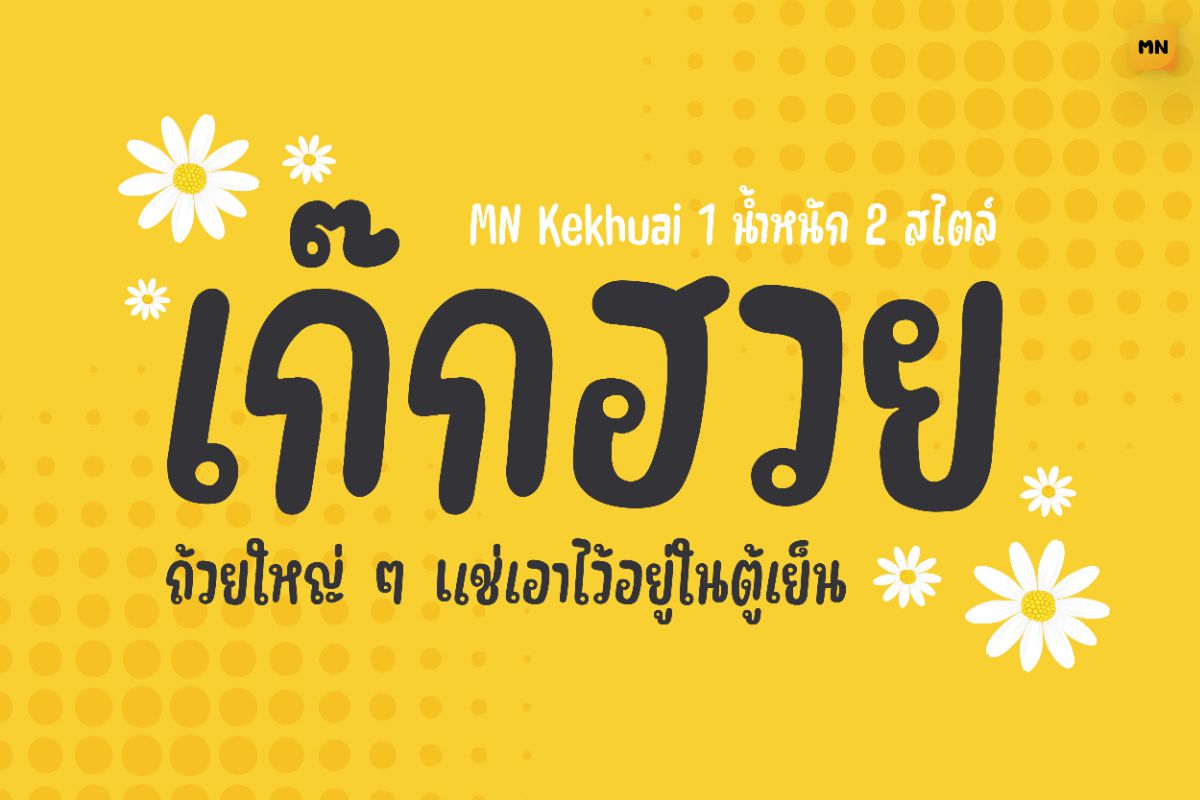
MN Kekhuai Regular
A playful handwritten typeface with thick, rounded strokes and soft curves that feel bold yet light, bringing warmth and personality to any design.